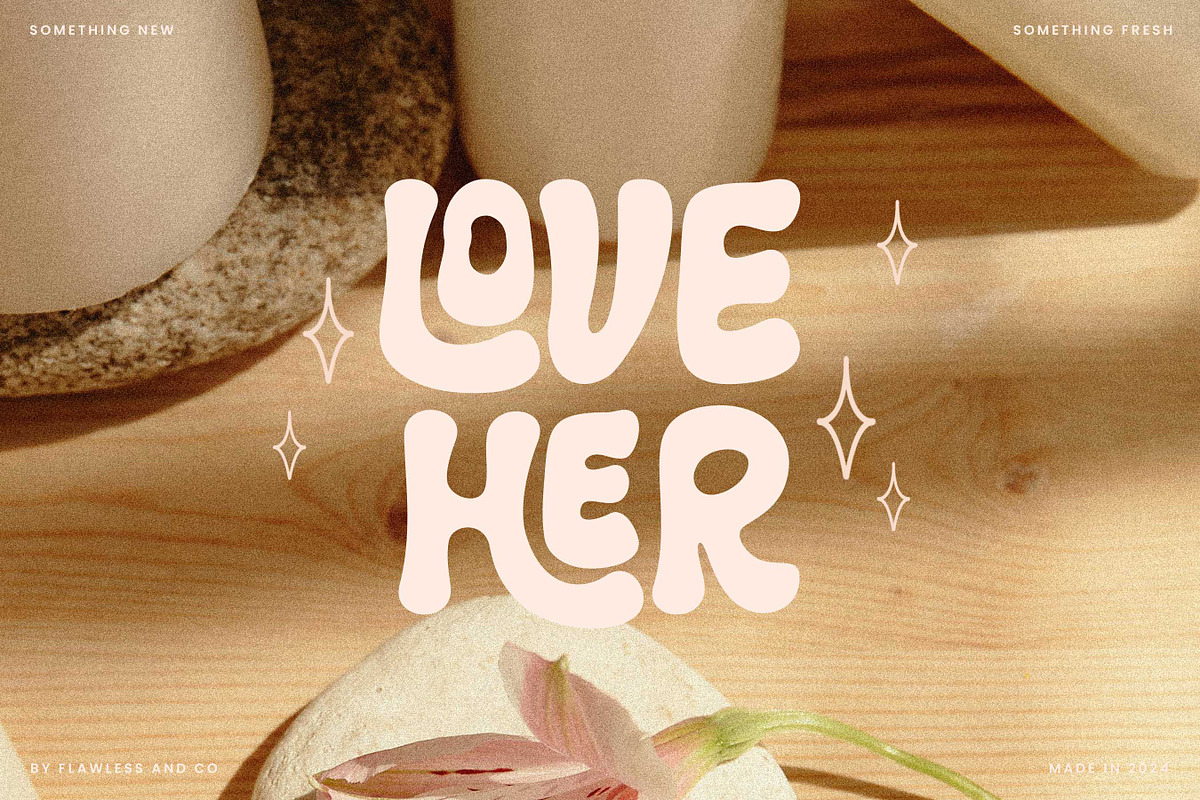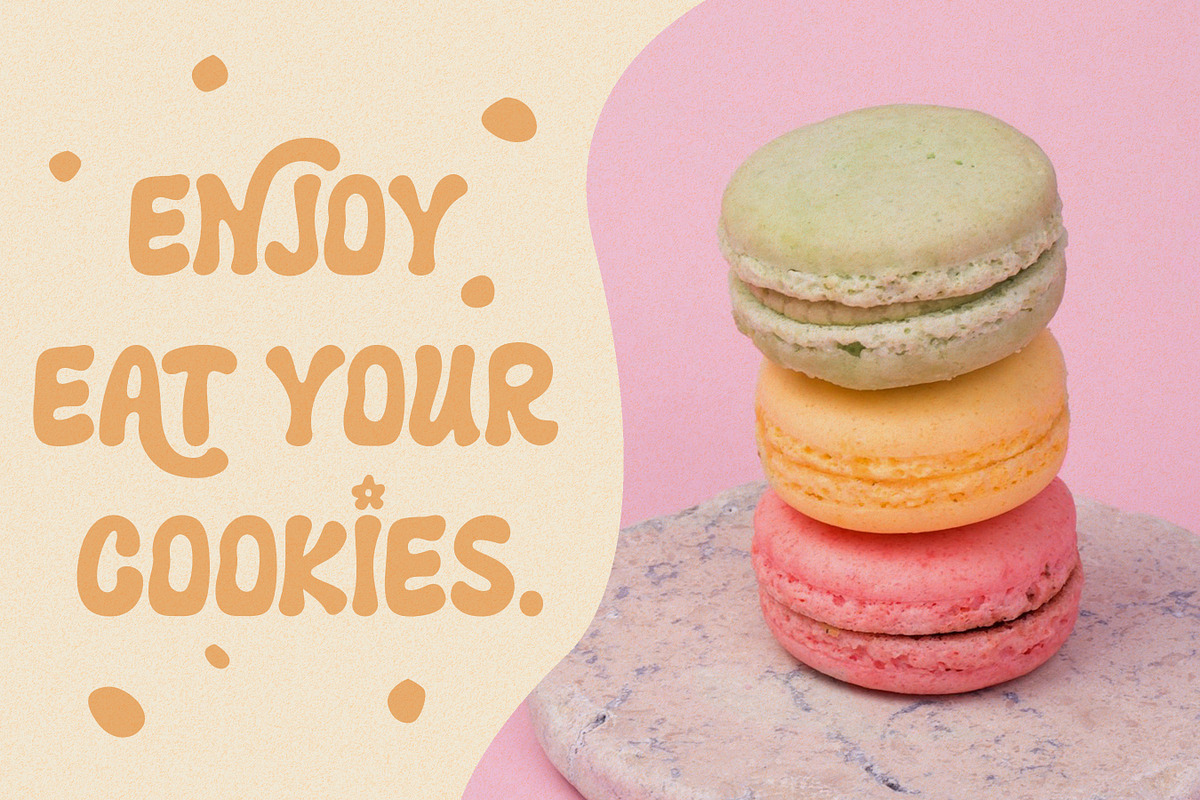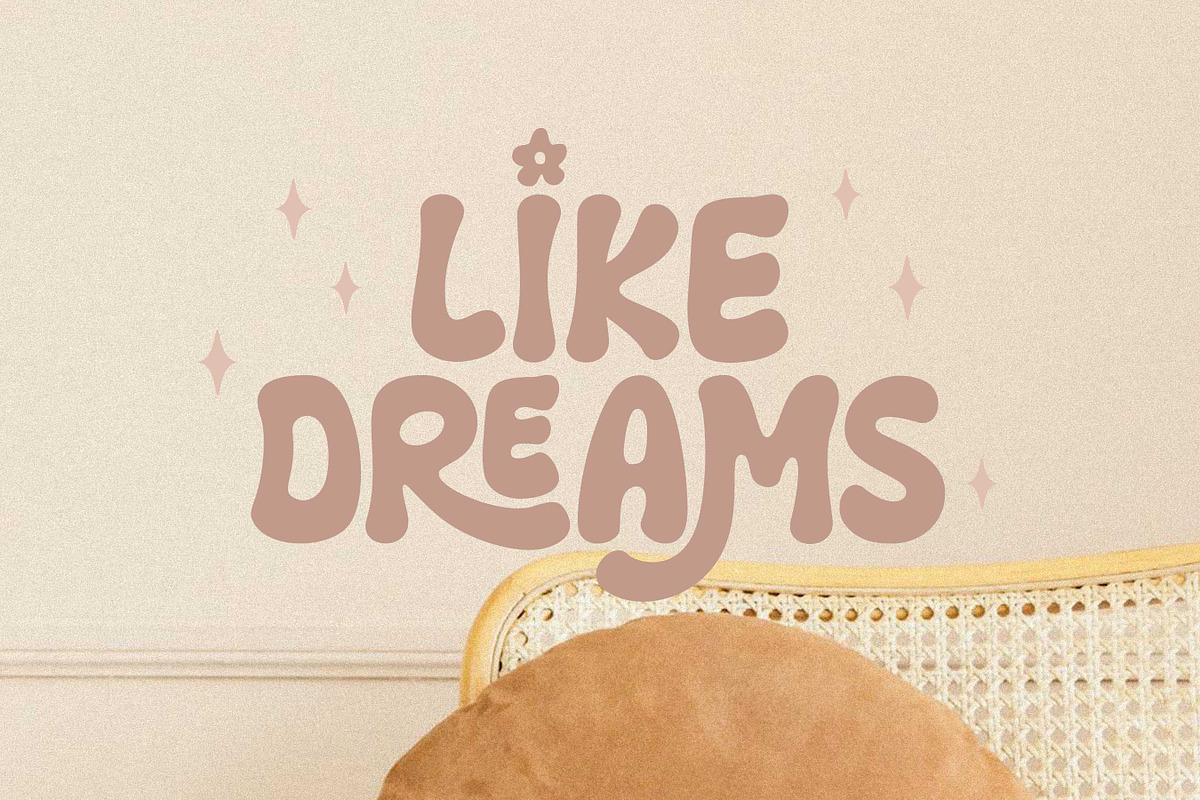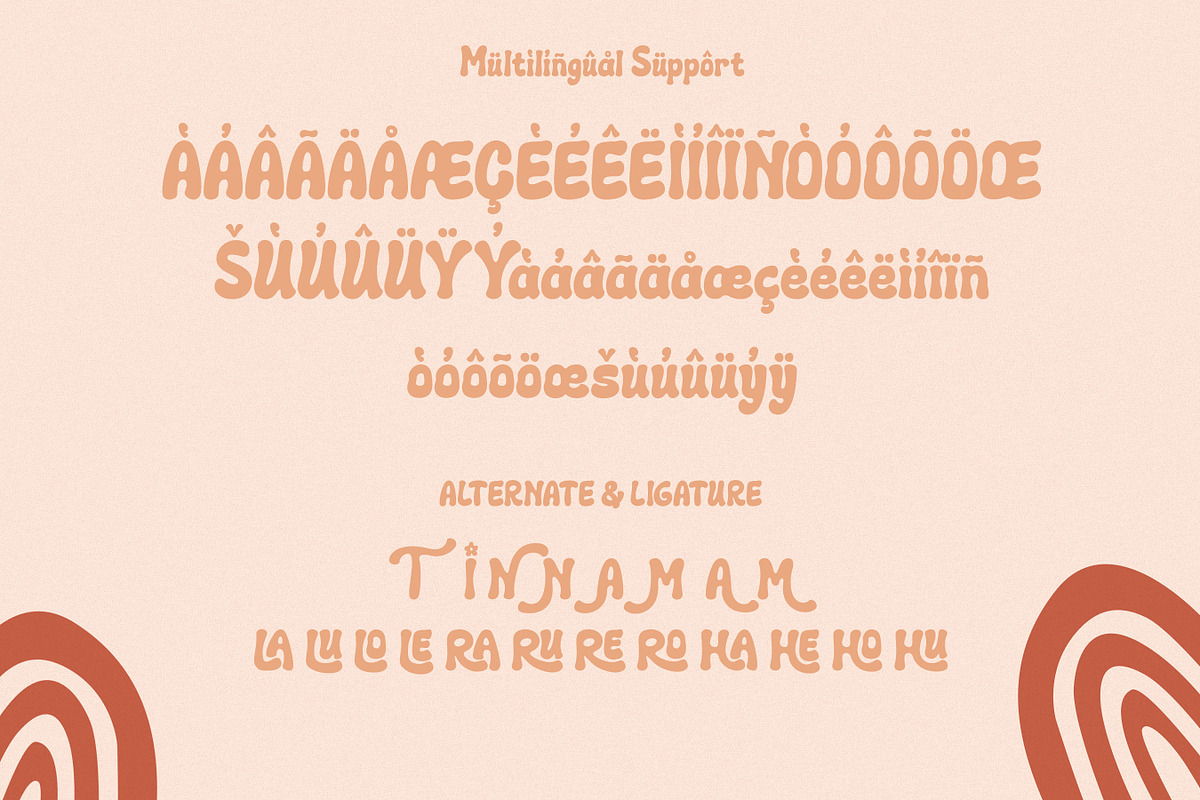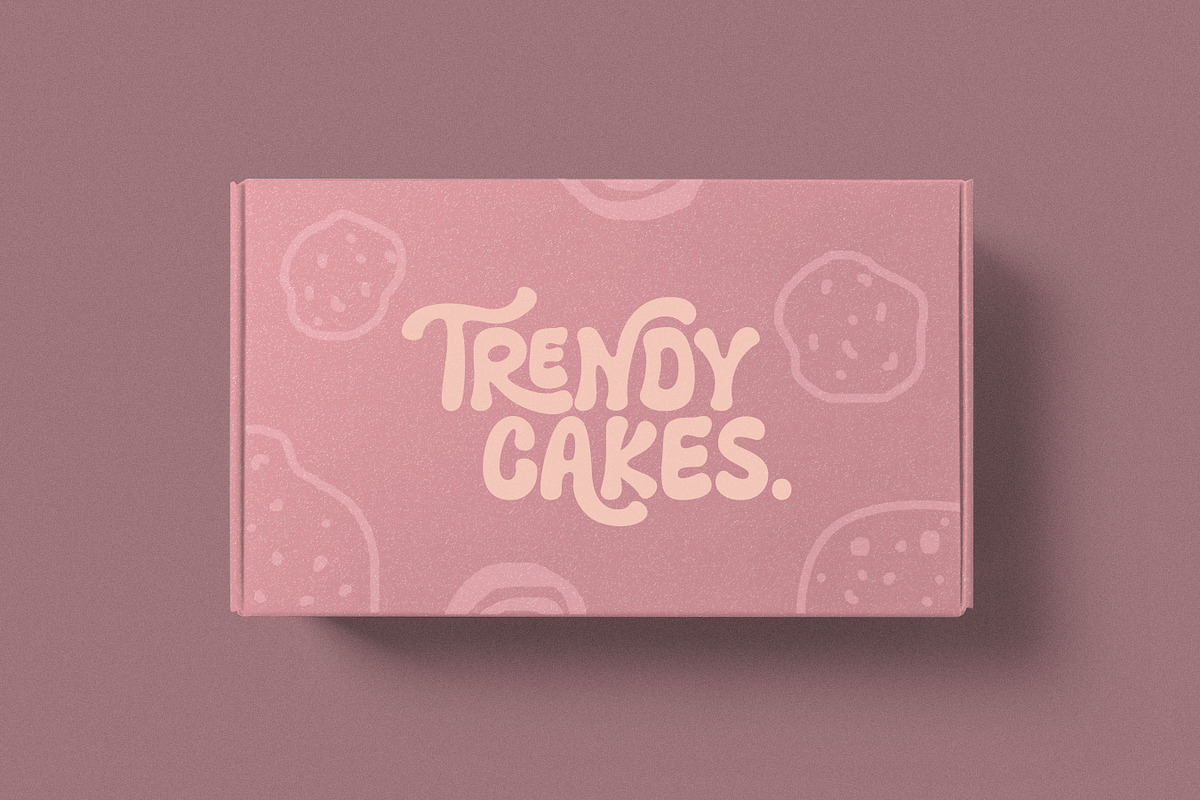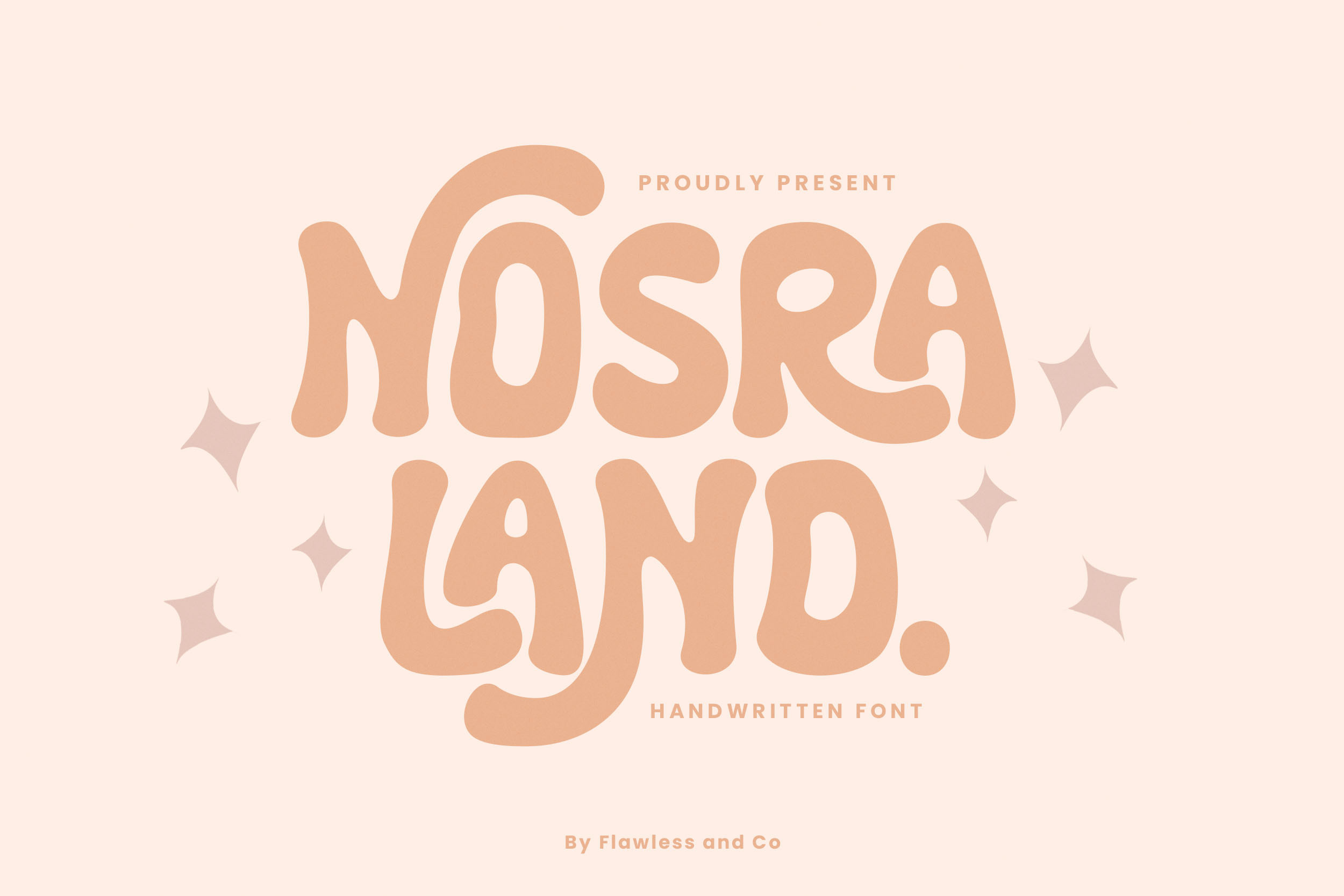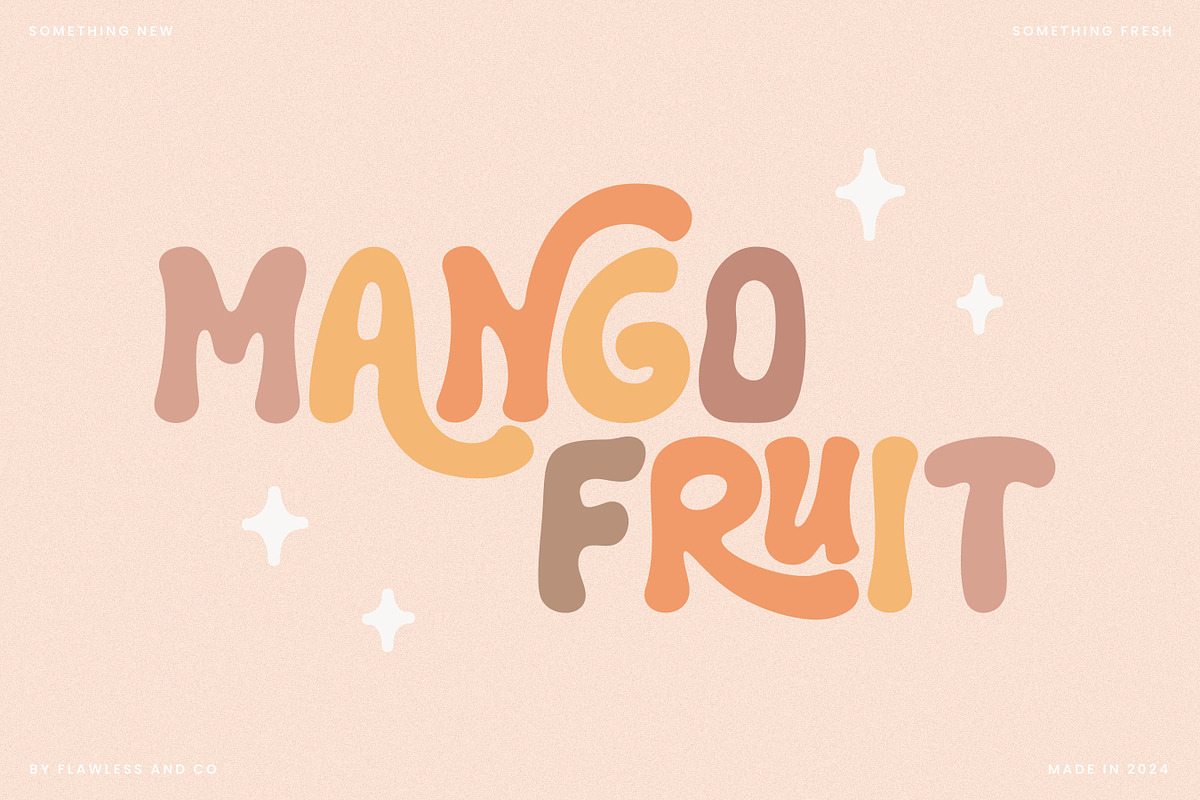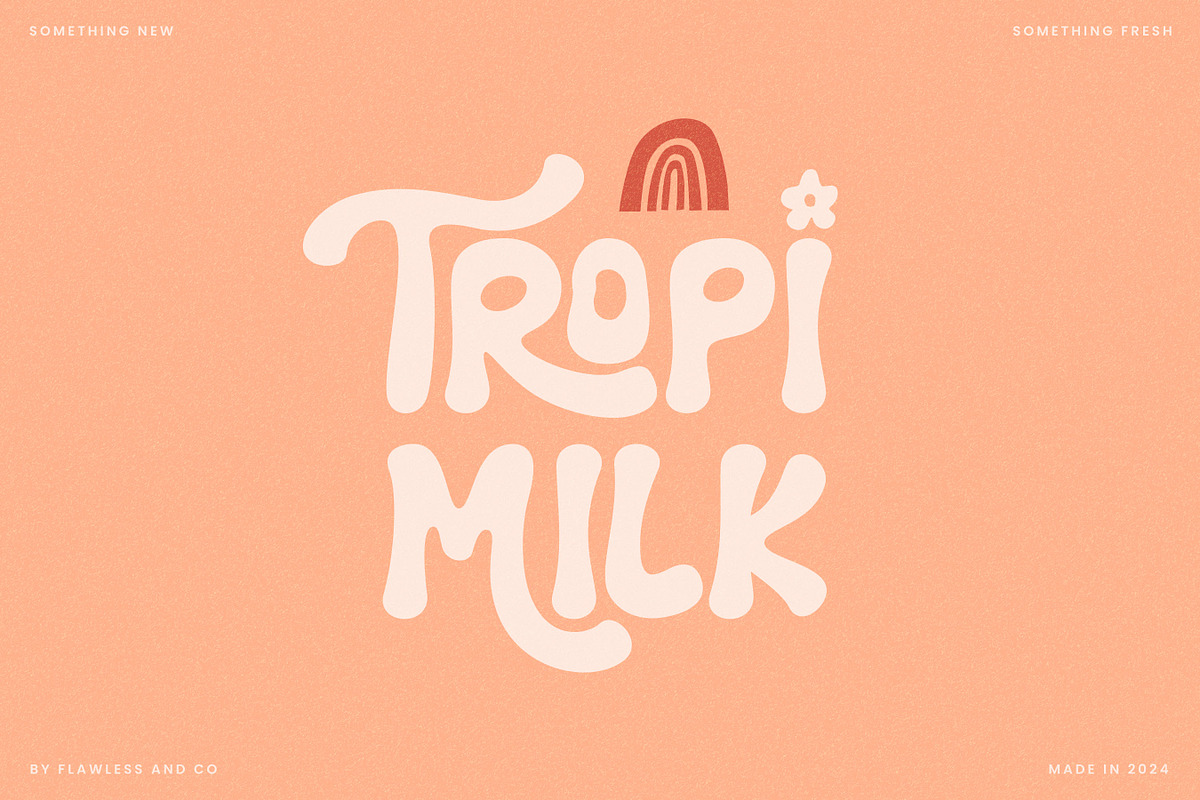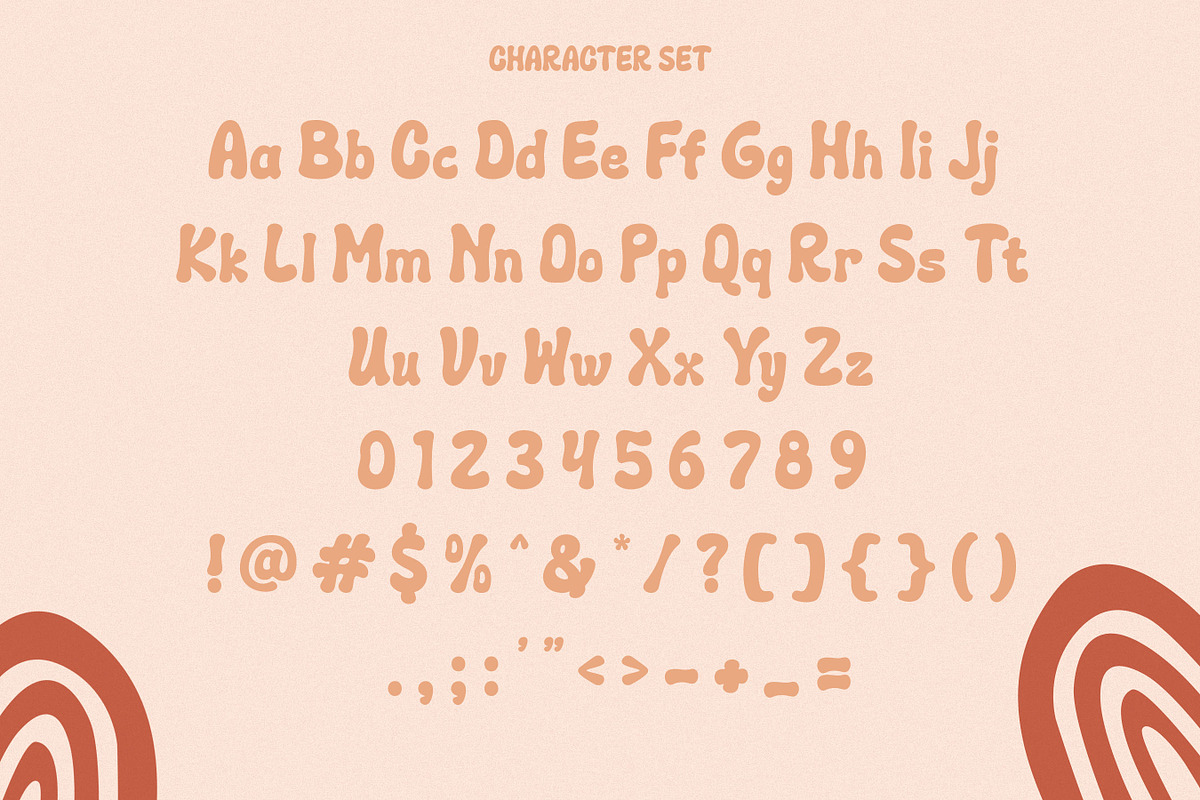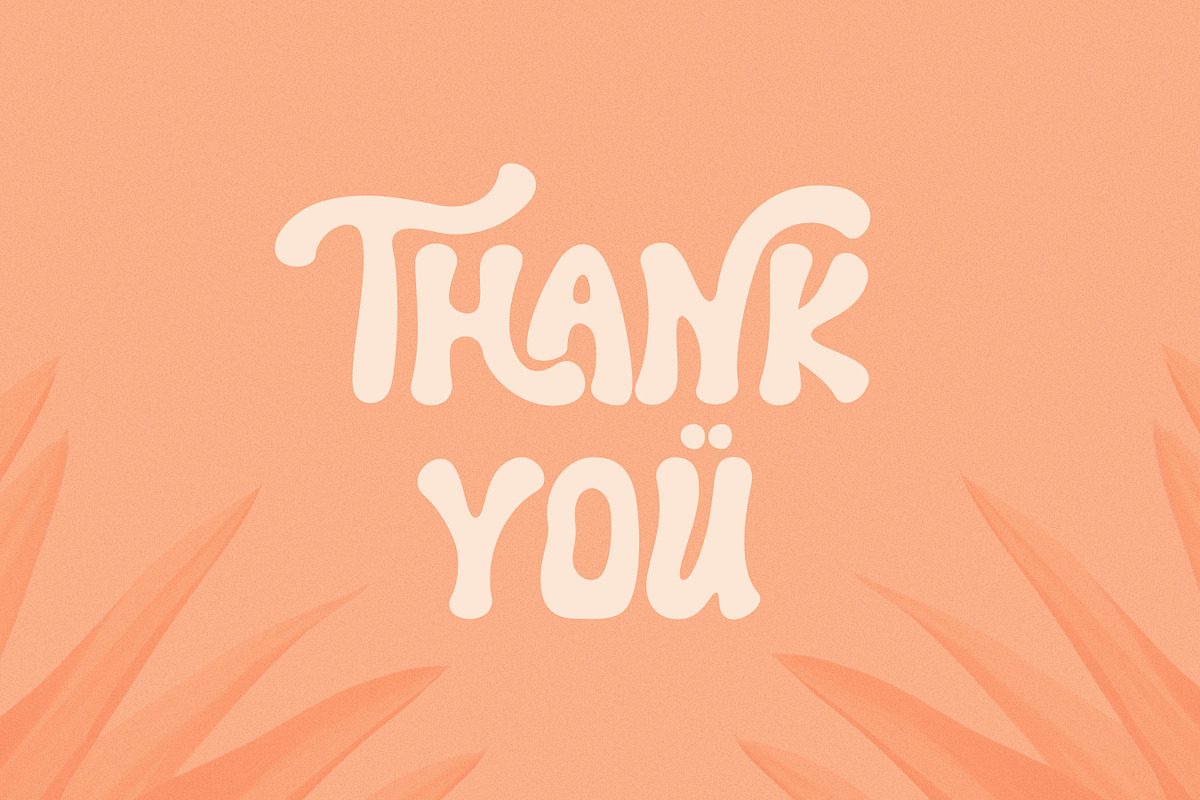
Nosra Land - Handwritten Brand Font
Introducing "Nosra Land" a handwritten brand font. Elevate your packaging designs with "Nosra Land," a versatile handwritten brand font that strikes the perfect balance between warmth and simplicity. With its organic charm and clean lines, Nosra Land adds a touch of authenticity and modernity to your packaging, making every product stand out on the shelves.